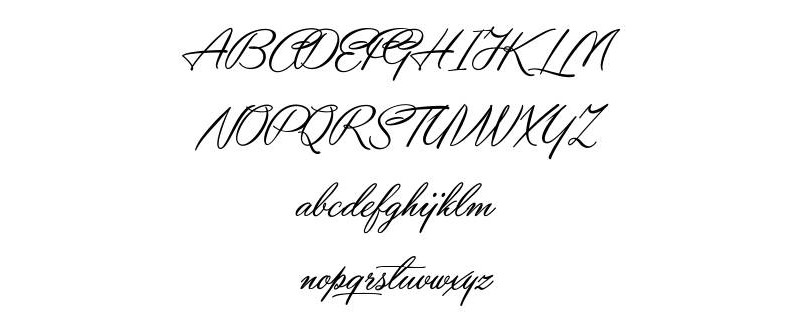
Today we are presenting the Yaquote Script Font, a calligraphic typeface created by renowned font designer Mans Greback in 2014.
This typeface comes with a unique texture that can be paired with bembo bold font and with that this will create some of the high-quality and incredible designs and is also considered as a great font generator.
This is the small font family that contains around 358 glyphs count and 100 units of this font are equal to one em. This is considered one of the best choices for an advertising campaign, and for handling social media posts as well.